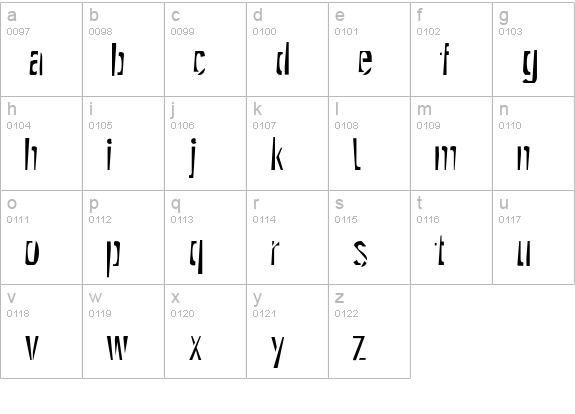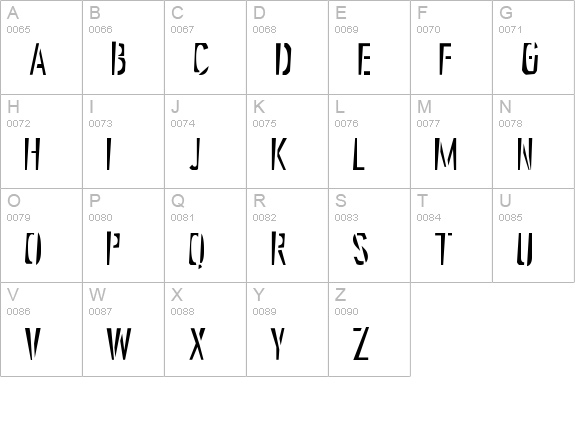
GenStencil font is a versatile and bold typeface that exudes a sense of strength and modernity. With its clean lines and distinctive stencil design, this font is perfect for making a statement in any project. Whether you're creating posters, logos, or branding materials, GenStencil font will give your work a unique and eye-catching look. What's even better is that GenStencil font is available for free download at FontsMarket.com. Now you can add this stylish and impactful font to your collection without breaking the bank. Don't miss out on the opportunity to elevate your designs with GenStencil font and make a lasting impression on your audience.